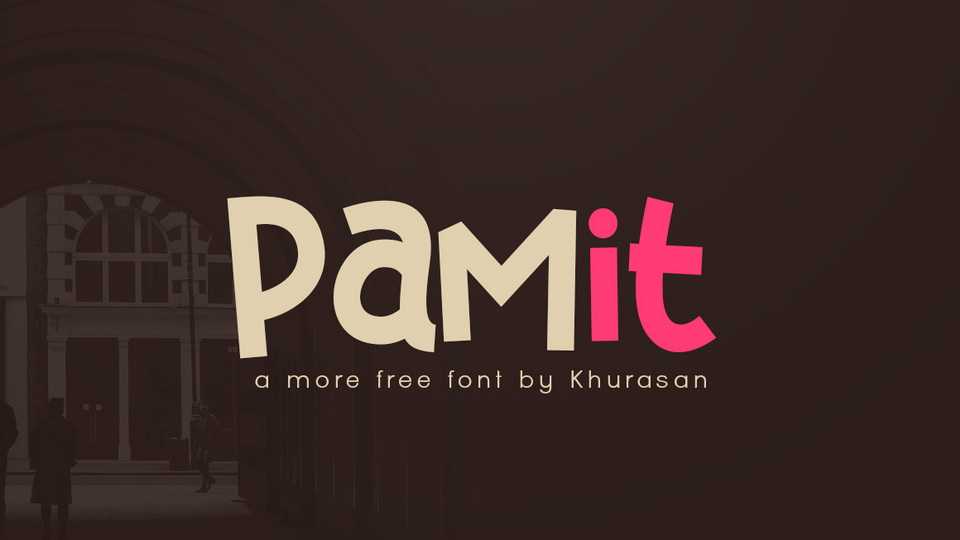
Pamit Font › Fontesk – Fonte Grátis
Pamit Font › Fontesk
Download Pamit font, a funny and cute display font. Pamit font is perfect for posters, logos, magazines, cover books, banners, and much more.